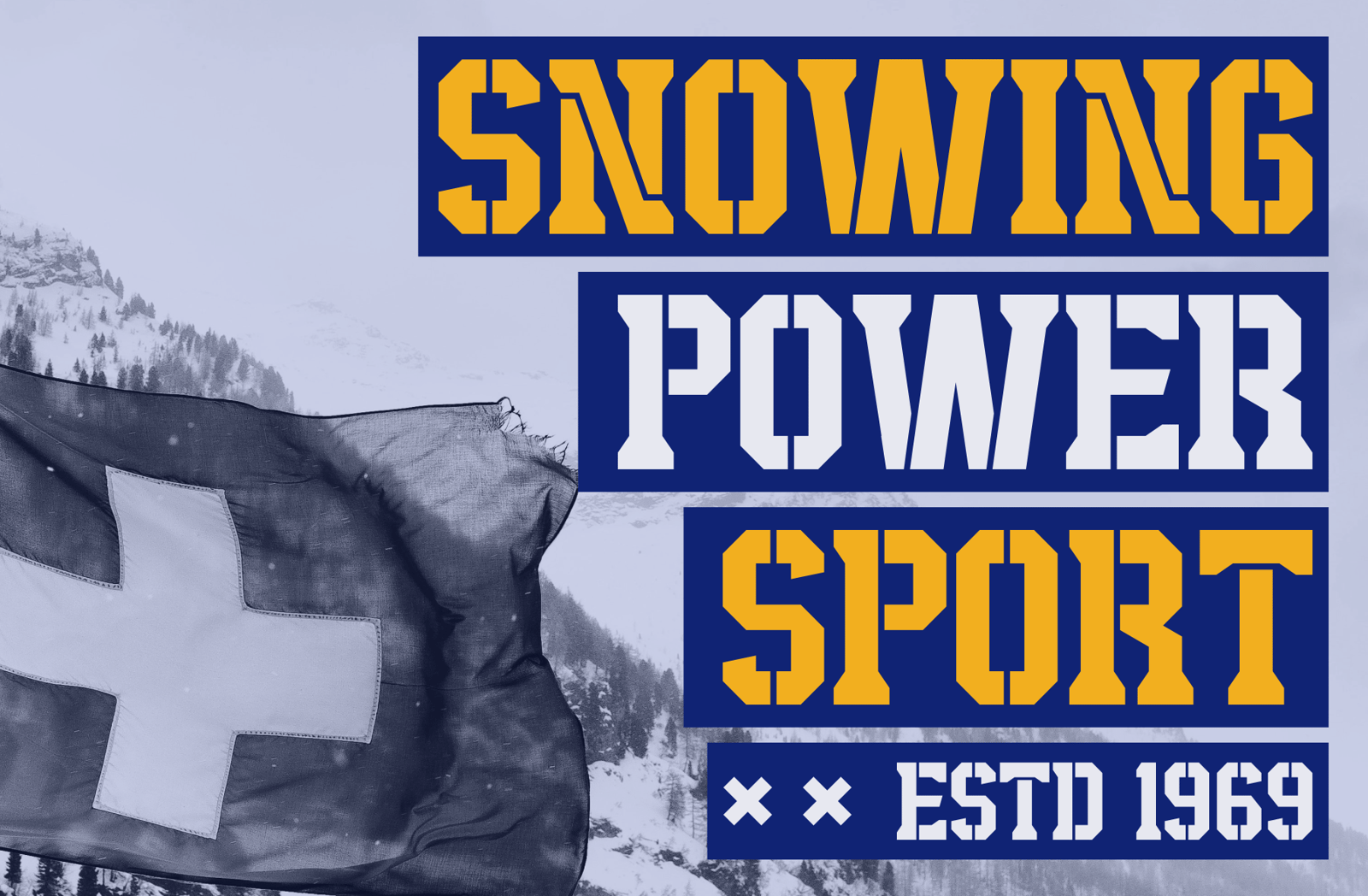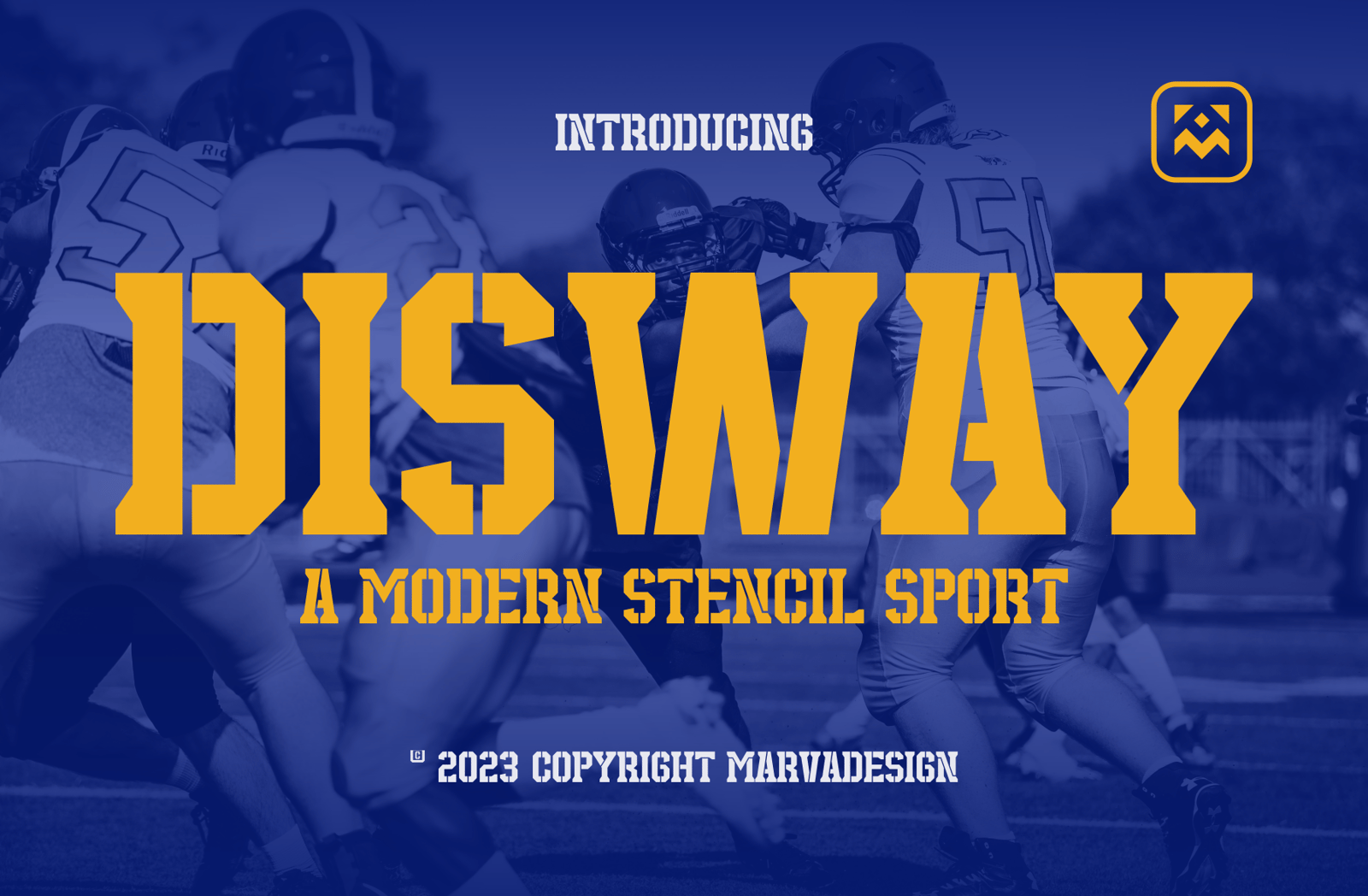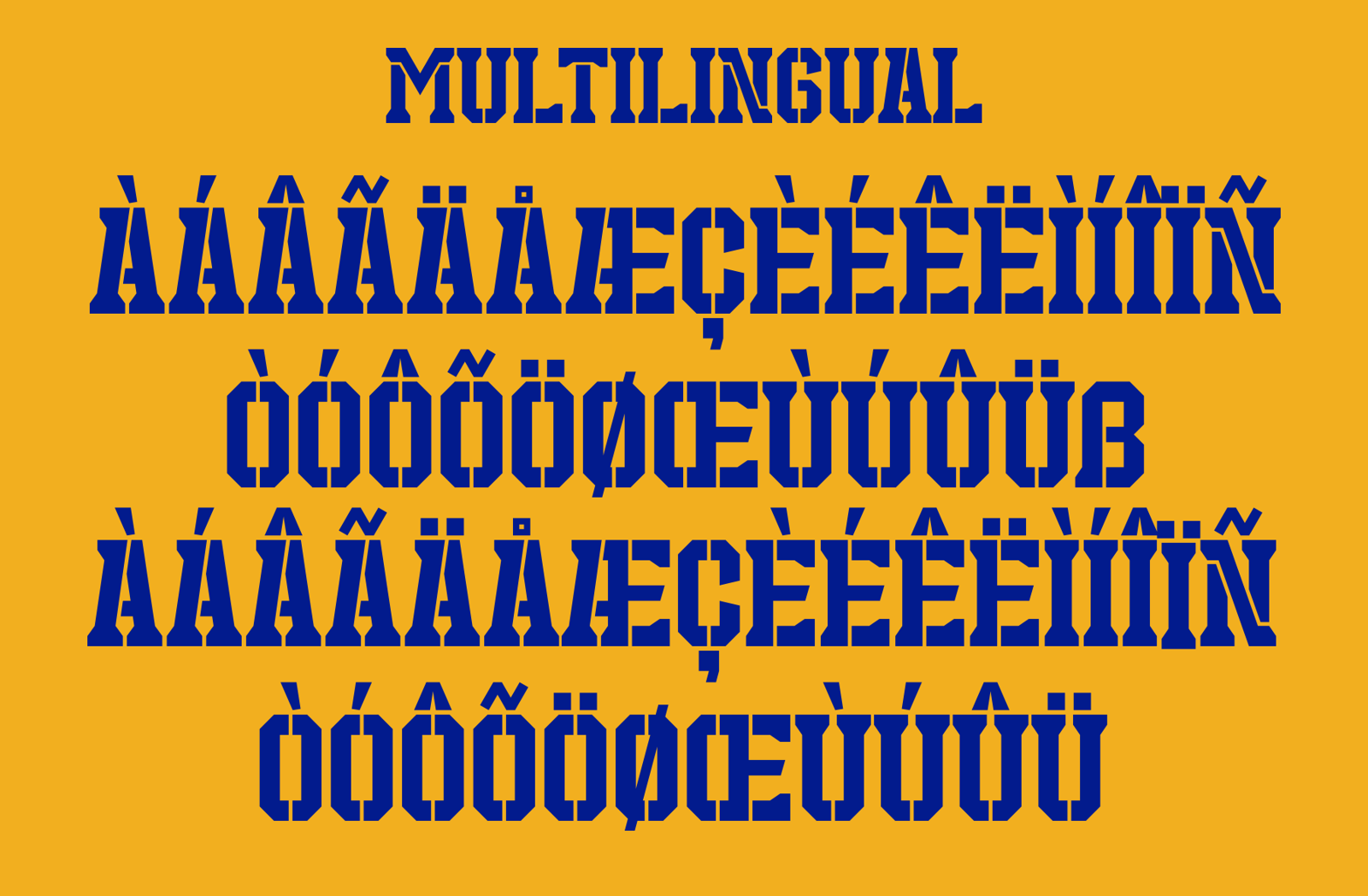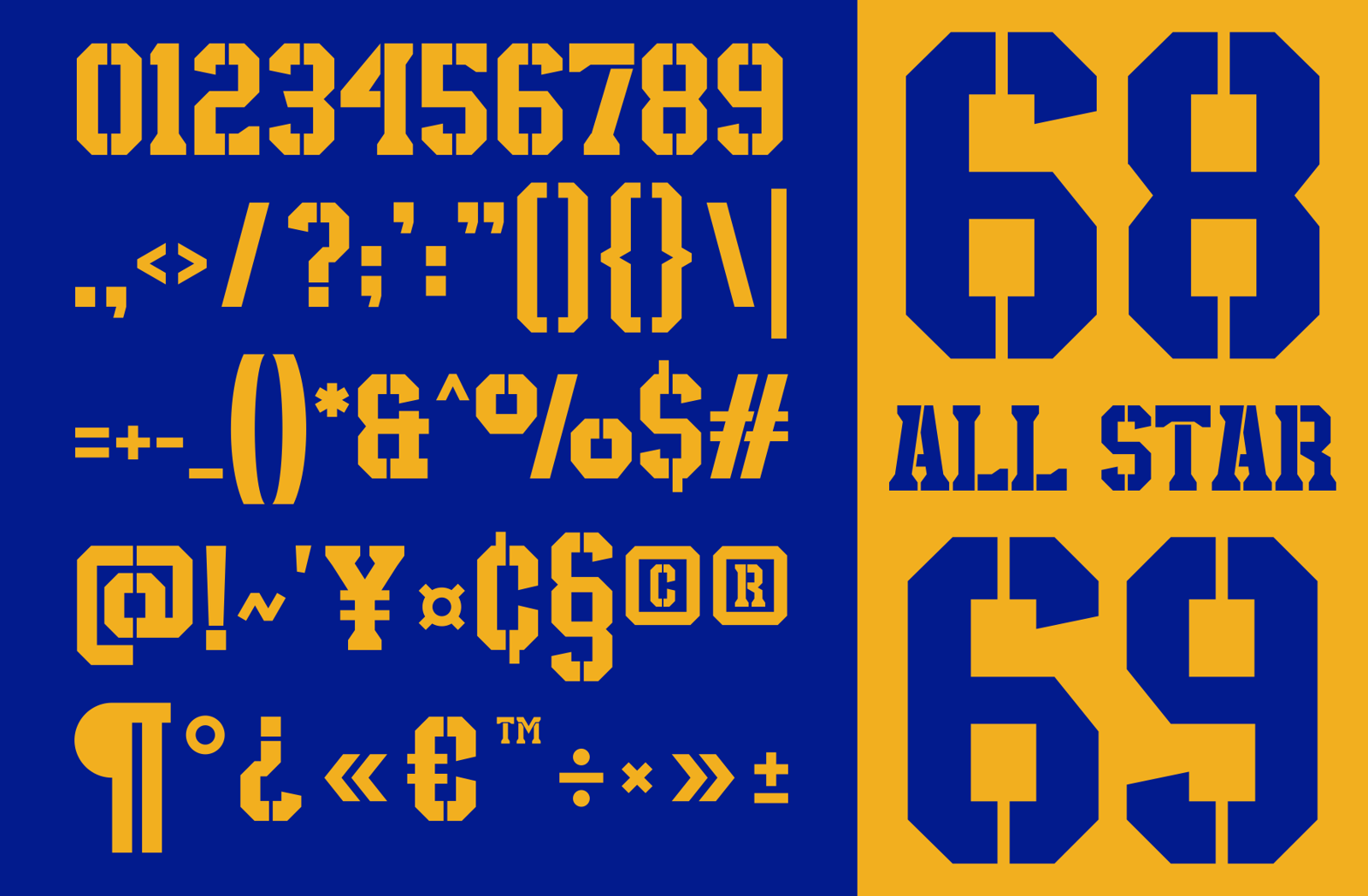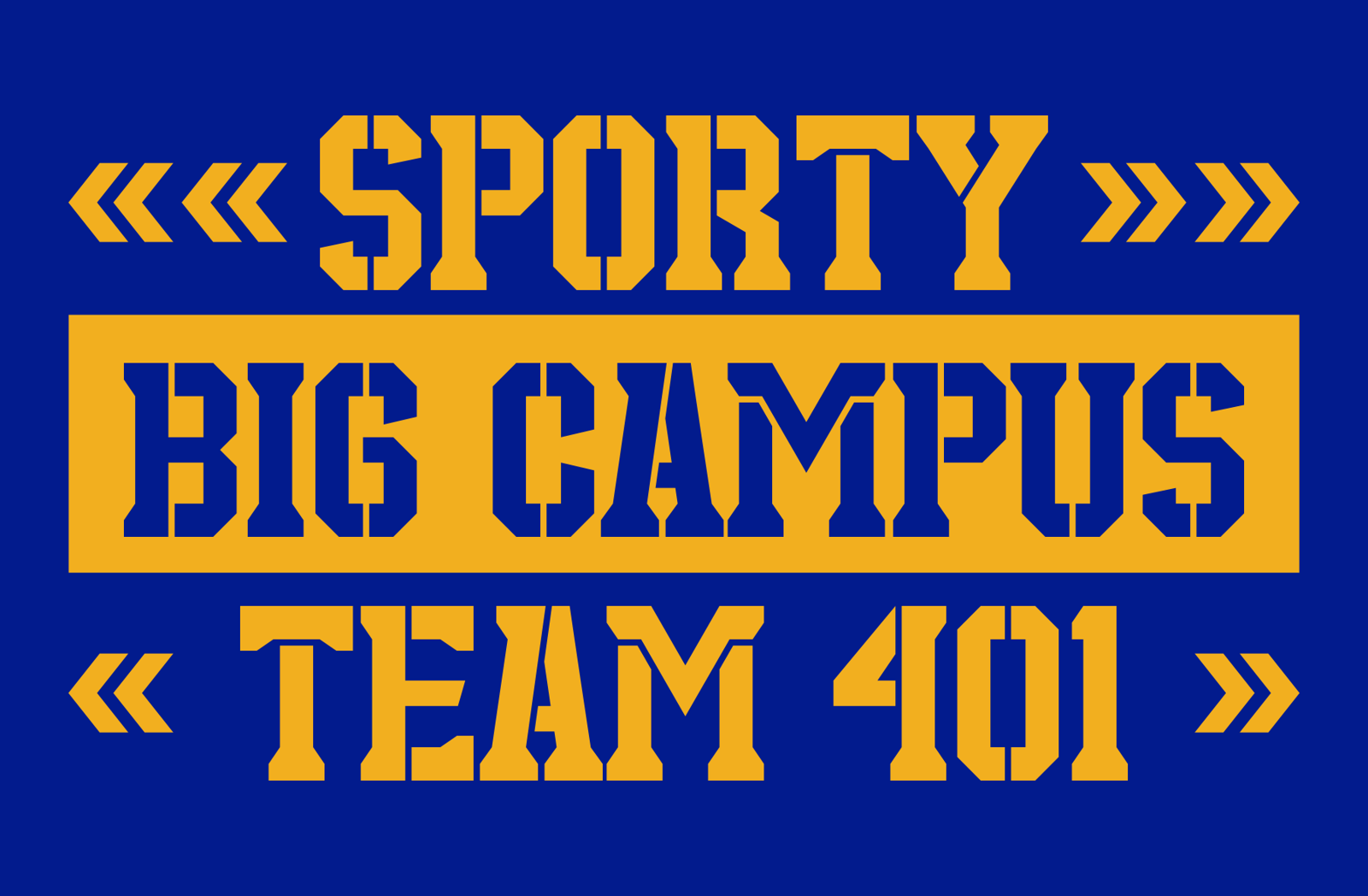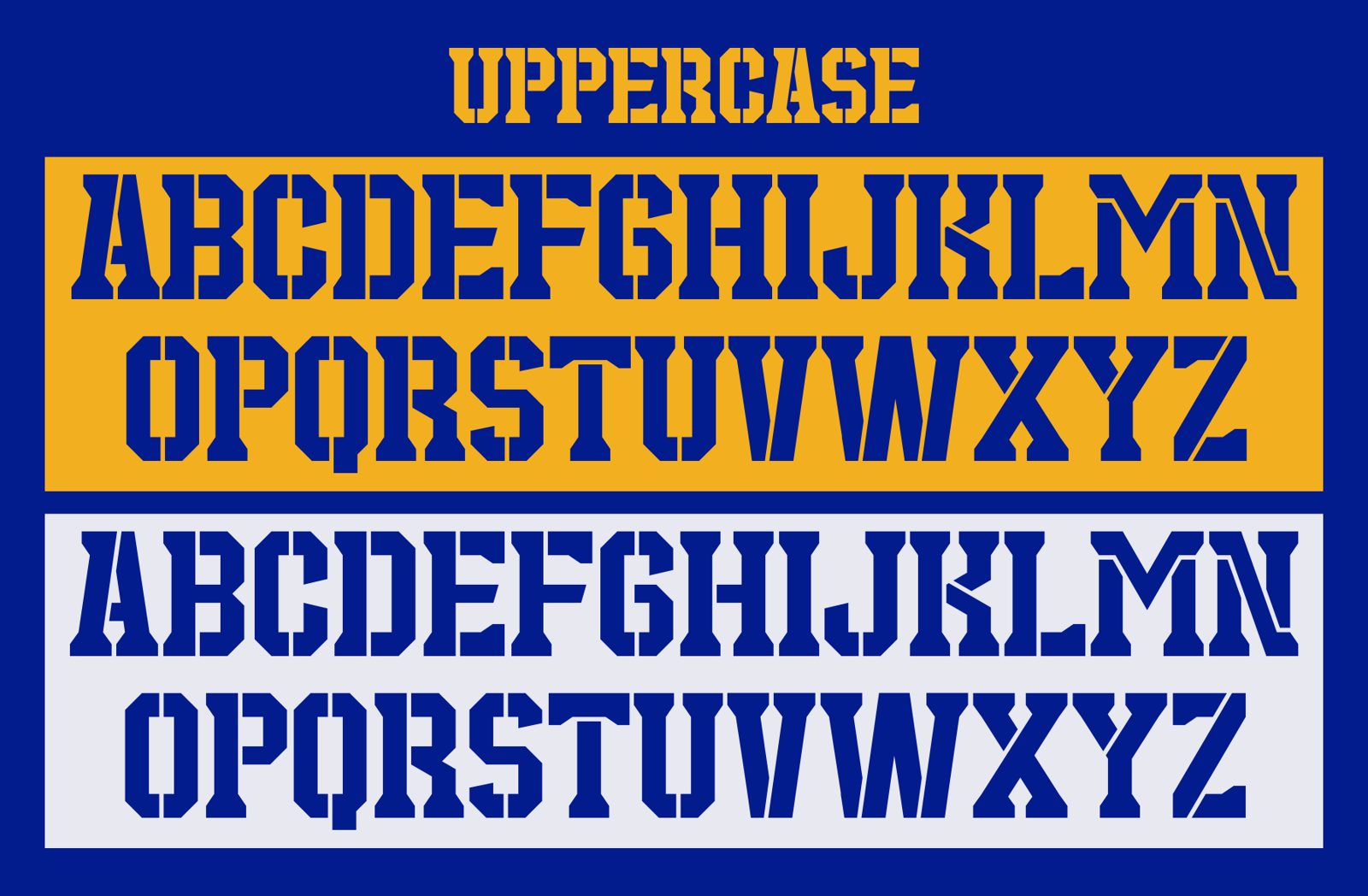
Disway Stencil Slab Font
Introducing Disway is a bold and modern stencil typeface with a strong, athletic character. It features thick, blocky letterforms with sharp angles and precisely cut sections, creating a rugged yet structured appearance. The geometric design and uniform spacing enhance readability while maintaining a distinctive and powerful presence. This font is particularly well-suited for sports branding, team logos, and dynamic event promotions due to its energetic and competitive aesthetic. The combination of blue and gold colors further amplifies its sporty and professional appeal, reinforcing a sense of strength, discipline, and determination.